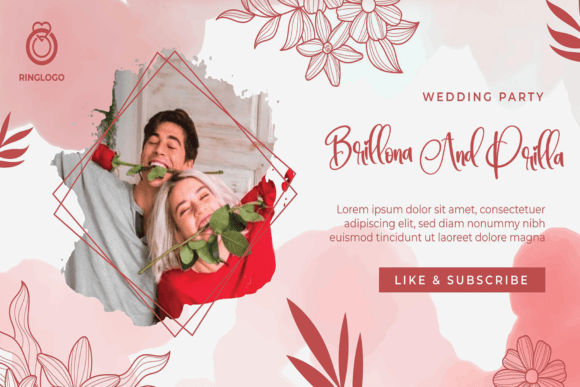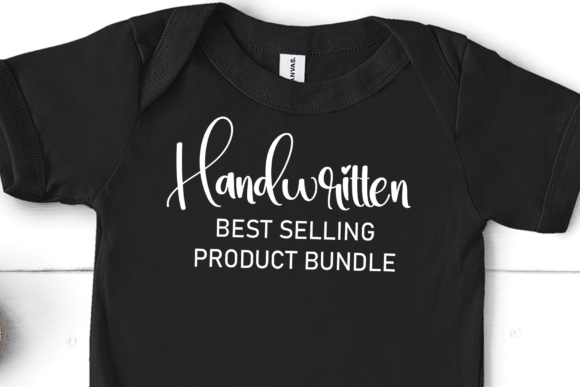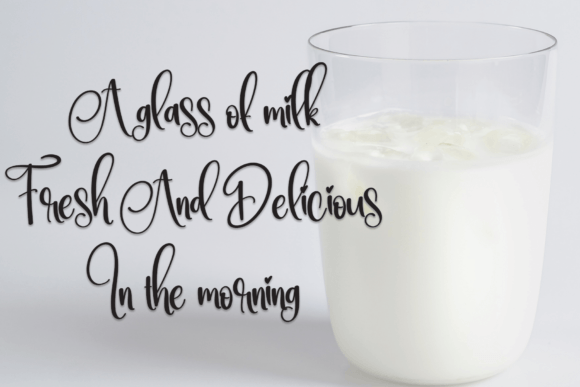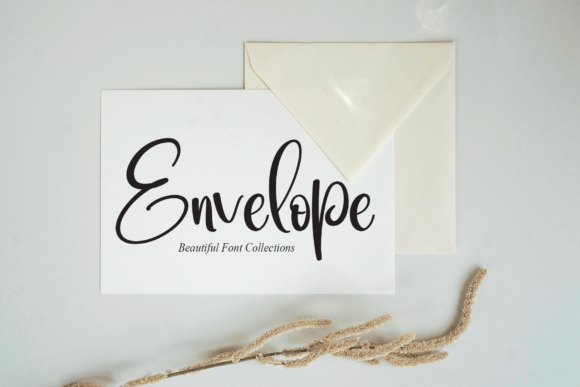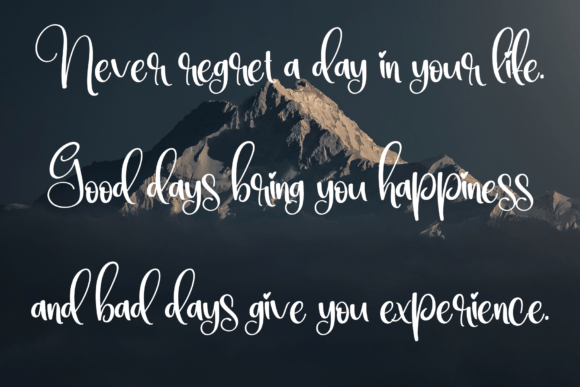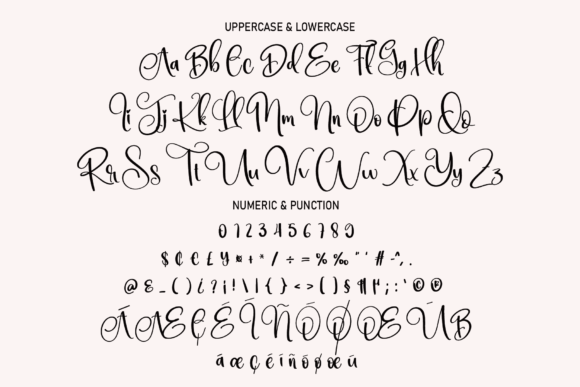
Discover the Beauty of Alone Font: Elevate Your Designs with Elegance
In the world of typography, fonts play a crucial role in conveying messages, expressing emotions, and creating visual identities. For designers, crafters, and creative enthusiasts, finding the right font can make all the difference in bringing their ideas to life. If you’re on the hunt for a beautiful script font that exudes modernity, uniqueness, and natural elegance, look no further than Alone Font.
What Makes Alone Font Special?
Alone Font is a stunning script font that boasts a modern and distinctive shape, making it perfect for a wide range of design applications. Its natural writing style gives it a personal touch, allowing you to create typographic designs that are both visually appealing and emotive. Whether you’re working on branding, web design, editorial projects, prints, crafts, or quotes, Alone Font is the perfect companion to help you achieve your creative vision.
One of the most exciting aspects of Alone Font is its versatility. This beautiful script font can be used to create a multitude of design pieces, including:
- Logotypes: Create custom logos that showcase your brand’s personality and style.
- Wedding Invitations: Add a touch of romance and elegance to your wedding stationery.
- Romantic Cards: Express your feelings with beautifully crafted greeting cards.
- Labels and Packaging: Elevate your product design with sophisticated typography.
- Name Spelling: Create personalized gifts, such as monogrammed items or customized name plates.
Bring Your Ideas to Life
Alone Font is more than just a font – it’s a tool to unlock your creativity. With its unique and modern shape, you can add a touch of sophistication to your designs and make them stand out. Whether you’re a professional designer or a crafty enthusiast, Alone Font is the perfect addition to your creative arsenal.
Why Choose Alone Font?
So, what sets Alone Font apart from other script fonts? Here are just a few reasons why designers and crafters love working with Alone Font:
- Unique and Modern Design: Alone Font’s distinctive shape makes it perfect for designers looking for a fresh and contemporary look.
- Natural Writing Style: The font’s natural writing style gives it a personal touch, making it ideal for creating emotive and engaging designs.
- Versatility: Alone Font can be used for a wide range of design applications, from branding and web design to editorial projects and crafts.
Tips for Using Alone Font
To get the most out of Alone Font, here are a few tips to keep in mind:
- Experiment with Pairings: Try pairing Alone Font with other fonts to create interesting and dynamic typographic combinations.
- Play with Size and Color: Don’t be afraid to experiment with different font sizes and colors to add depth and visual interest to your designs.
- Keep it Simple: Sometimes, less is more. Don’t overcomplicate your design – let the beauty of Alone Font shine through.
Alone Font is a beautiful script font that offers a world of creative possibilities. With its modern and unique shape, natural writing style, and versatility, it’s the perfect addition to any designer’s or crafter’s toolkit. Whether you’re looking to create stunning branding, elegant wedding invitations, or eye-catching packaging, Alone Font is the perfect choice. So why wait? Unlock your creativity and bring your ideas to life with Alone Font.